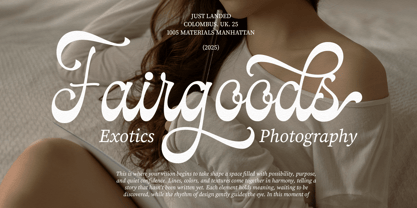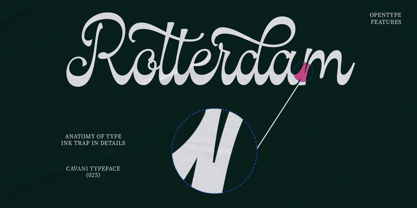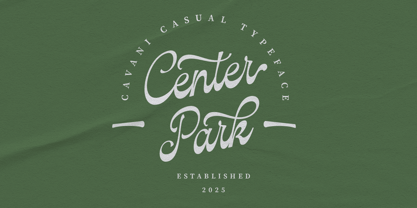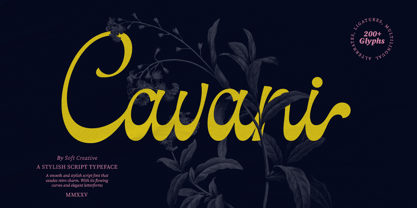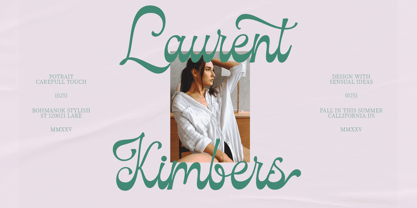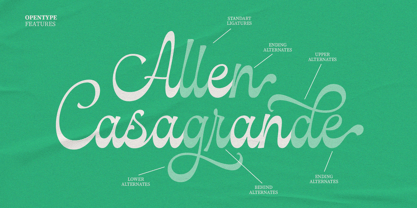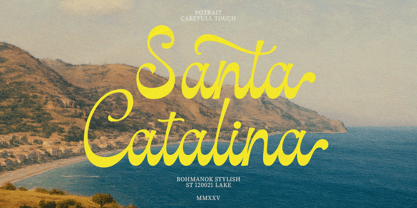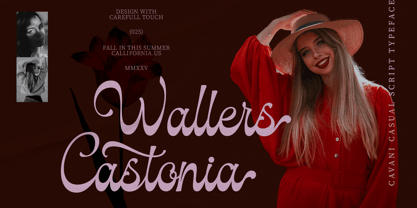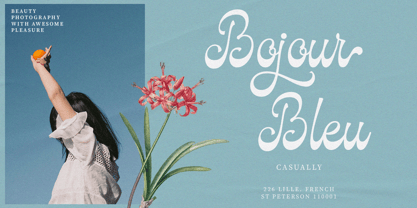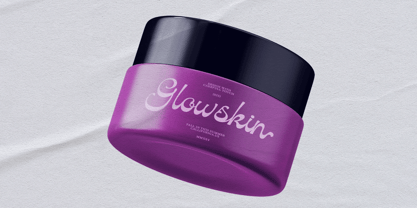
Cavani
by Soft Creative
The Cavani Font Family was designed by Muhajir Akarim and published by Soft Creative. Cavani contains 1 styles.
Introducing Cavani, a script font that has irregular thickness and slightly boxy edges, making the letters a little different from regular script fonts. Cavani is a great choice for a casual yet attractive aesthetic. Cavani is perfect for your creative projects such as logos, invitations, cards, product packaging, tech quotes, letterheads, posters, apparel designs, etc. Silenta also has some unique alternatives and binders, Cavani also features multilingual support that can make your projects more interesting.
Designers: Muhajir Akarim
Publisher: Soft Creative
Foundry: Soft Creative